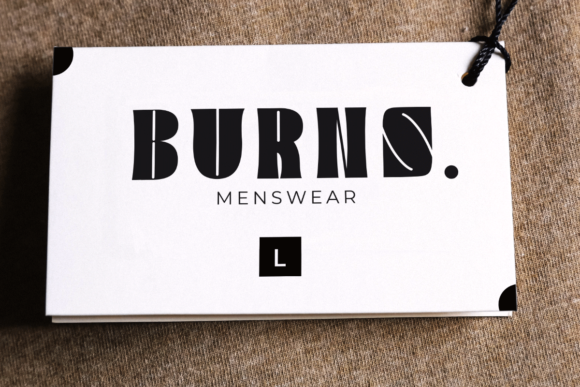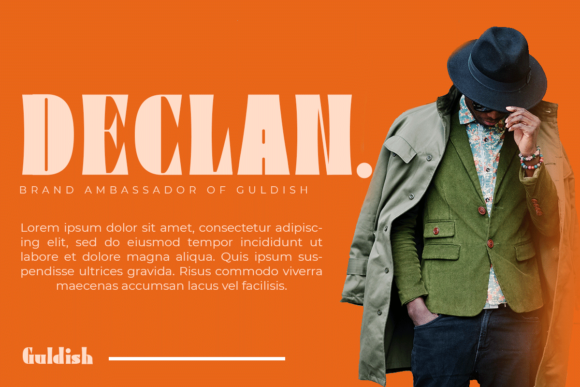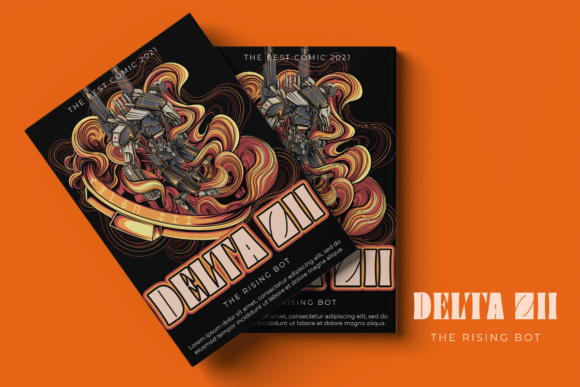
Introduction to Nalla Font
Have you ever been in the middle of a creative project, staring at a blank canvas or a dull design, searching for that one spark to bring it to life? The right font can make all the difference, elevating your work from ordinary to extraordinary. And that’s exactly where Nalla Font comes in – a bold and thick lettered display font that’s sure to be a game-changer for any design enthusiast.
With its high-quality design and versatility, Nalla Font has the potential to enhance any creation, whether it’s a logo, a poster, or even a social media graphic. Its unique style makes it a valuable asset to any designer’s library, and the best part? It’s available for a free download, making it an accessible design resource for everyone.
Nalla Font
- High-quality design resource with a unique and creative style, perfect for various projects.
- Transparent background, allowing for seamless integration into any design.
- Includes a range of characters, including uppercase and lowercase letters, numbers, and symbols.
- Designed with a high resolution of 300 DPI, ensuring crisp and clear typography.
- Font size ranges from 12pt to 72pt, providing flexibility for various design applications.
Honest Review: Nalla Font
I recently came across the Nalla Font while searching for a high-quality font for a creative project, and I’m glad I gave it a try. The free download was a nice surprise, making it an excellent addition to my design resource library.
What works well: ✨ The Nalla Font has a unique and elegant design that’s perfect for adding a touch of sophistication to any project. The transparent background makes it easy to use with different backgrounds, and the high quality of the font ensures that it looks great at any size. The font is also highly customizable, allowing me to tweak it to fit my specific design needs.
- Unique and elegant design
- High quality
Limitations: ⚠️ While the Nalla Font is an excellent resource, it does lack a bit of variety in terms of font weights and styles. This might be a limitation for designers who need a wide range of options for their projects.
Overall, I’m really impressed with the Nalla Font and would definitely recommend it to fellow designers. It’s a great addition to any design resource library and is perfect for adding a touch of elegance to any project.
Tips for Getting the Most Out of Nalla Font
For a high-quality design, use Nalla Font in conjunction with other design resources, such as images and graphics. Experiment with different font sizes and styles to add depth and interest to your design. You can also use Nalla Font with a transparent background to create a modern and sleek look.
Nalla Font is a versatile design resource that can be used in a variety of creative projects, including logos, social media graphics, and presentations. Its high-quality design and transparent background make it an ideal choice for designers and non-designers alike.
Compared to Nalla Font, Alex Brush Font has a more refined and polished feel, making it suitable for projects that require a high level of professionalism.